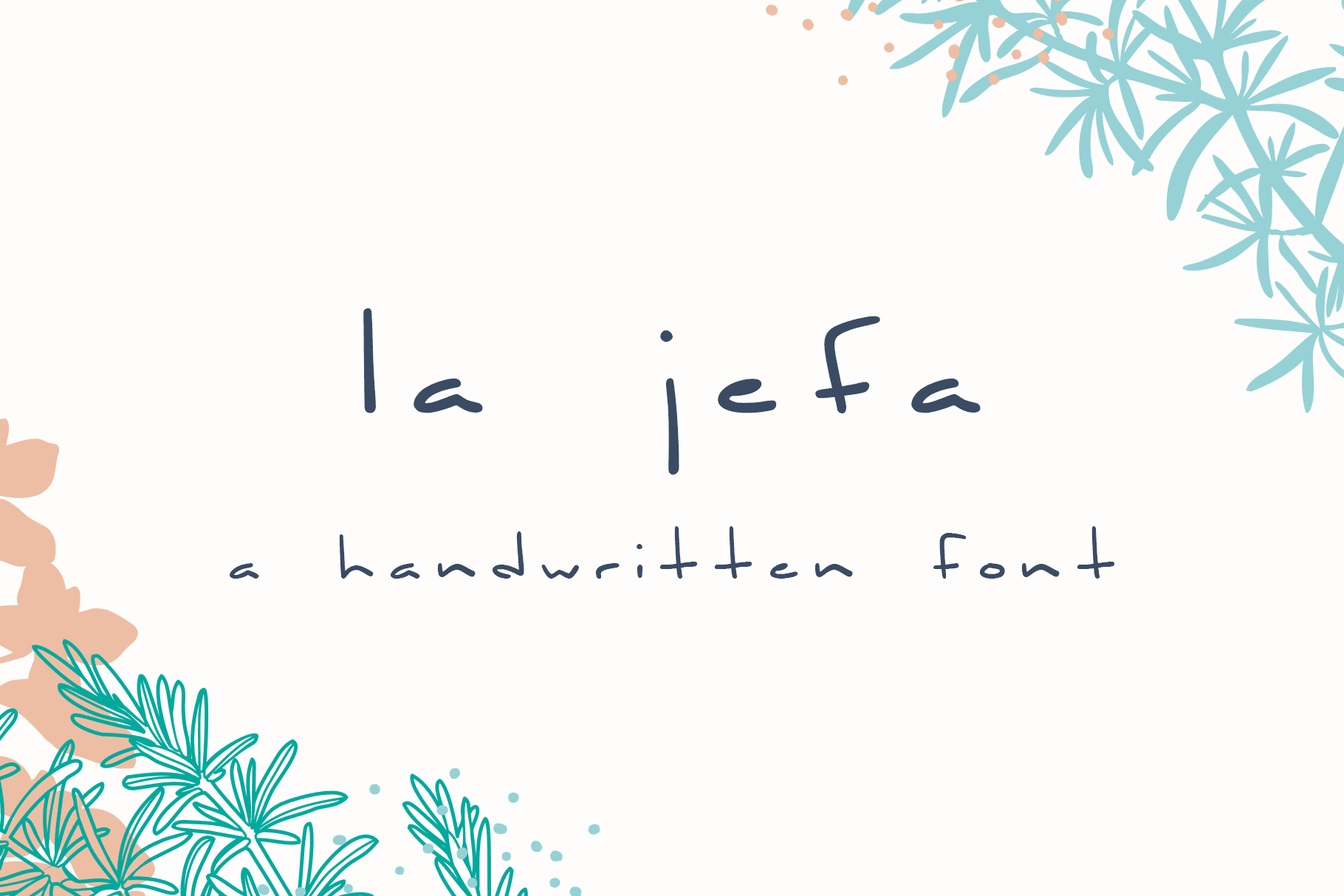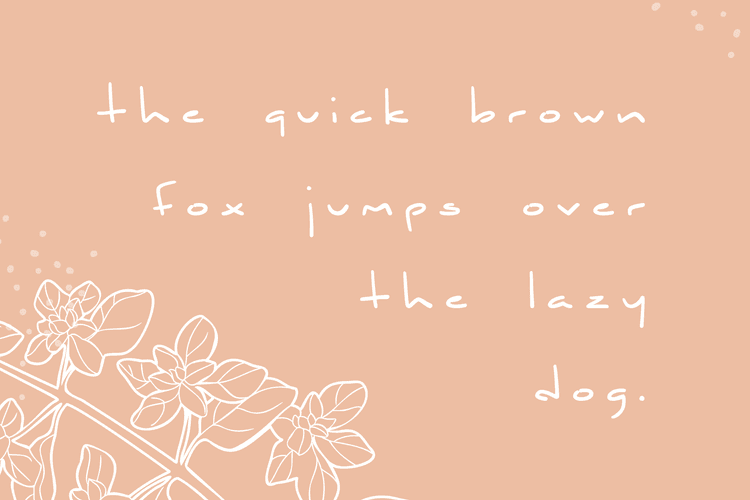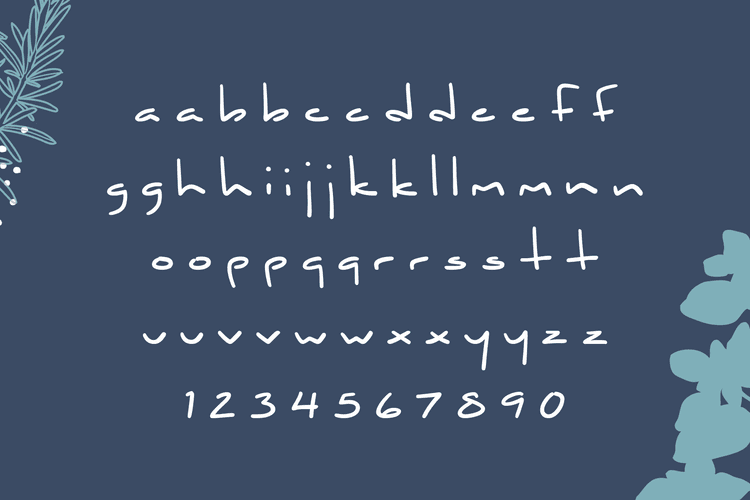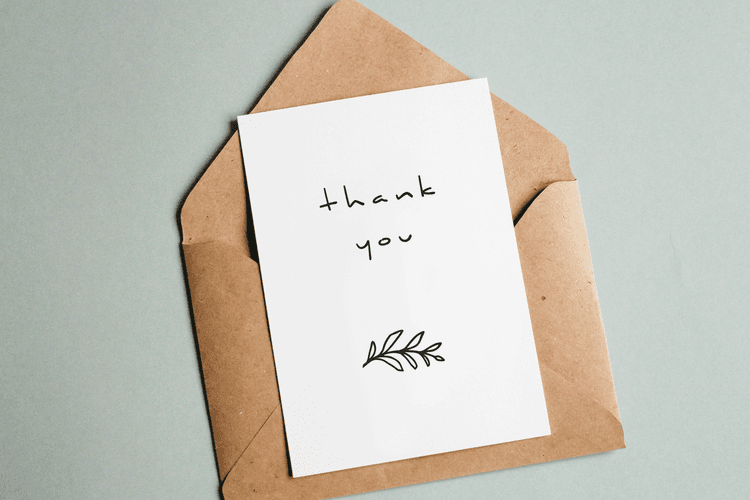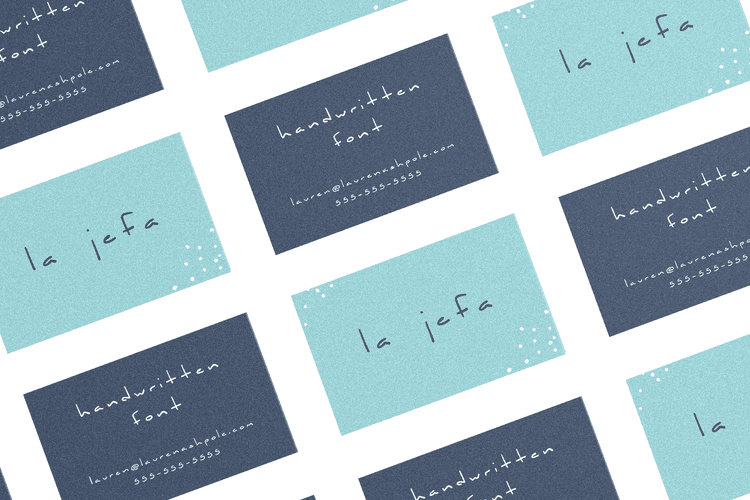
La Jefa
A short font for short people*
La Jefa is very, very loosely based on a Christmas card I received years ago from my boss at the time. Designed to capture that personalized touch, it's a hand lettered font with a short x-height and ample spacing. Although all of the letters are lowercase, the uppercase provides a unique set of characters that can be mixed in for a more natural handwritten feel.
*also people of tall or average height